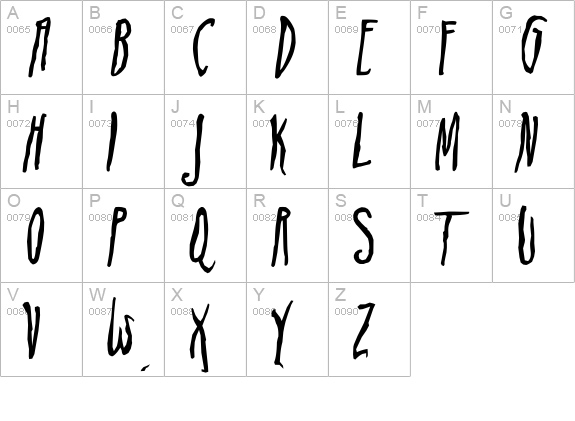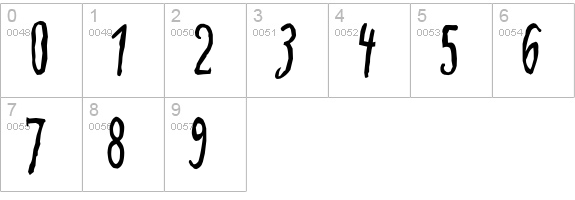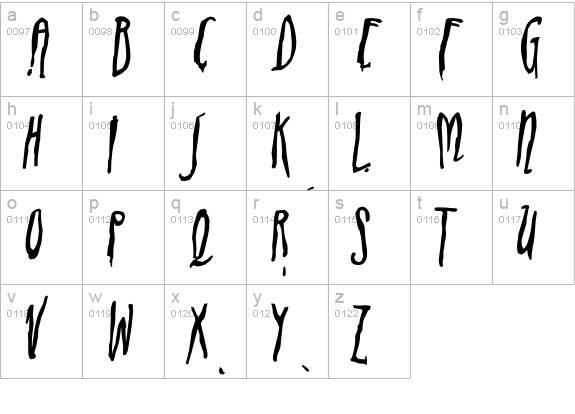
ADIstiLleRS Font Edgy Font Details
The ADIstiLleRS Font Edgy font is a bold and dynamic typeface that exudes a sense of edginess and modernity. Its sharp angles and unique design make it perfect for adding a touch of personality to any project. Whether you're creating posters, branding materials, or social media graphics, this font is sure to make a statement. What's even better is that the ADIstiLleRS Font Edgy font is available for free download at FontsMarket.com. You can easily access this stylish font and start using it in your designs without any cost. Don't miss out on this fantastic opportunity to enhance your creations with the ADIstiLleRS Font Edgy font today!